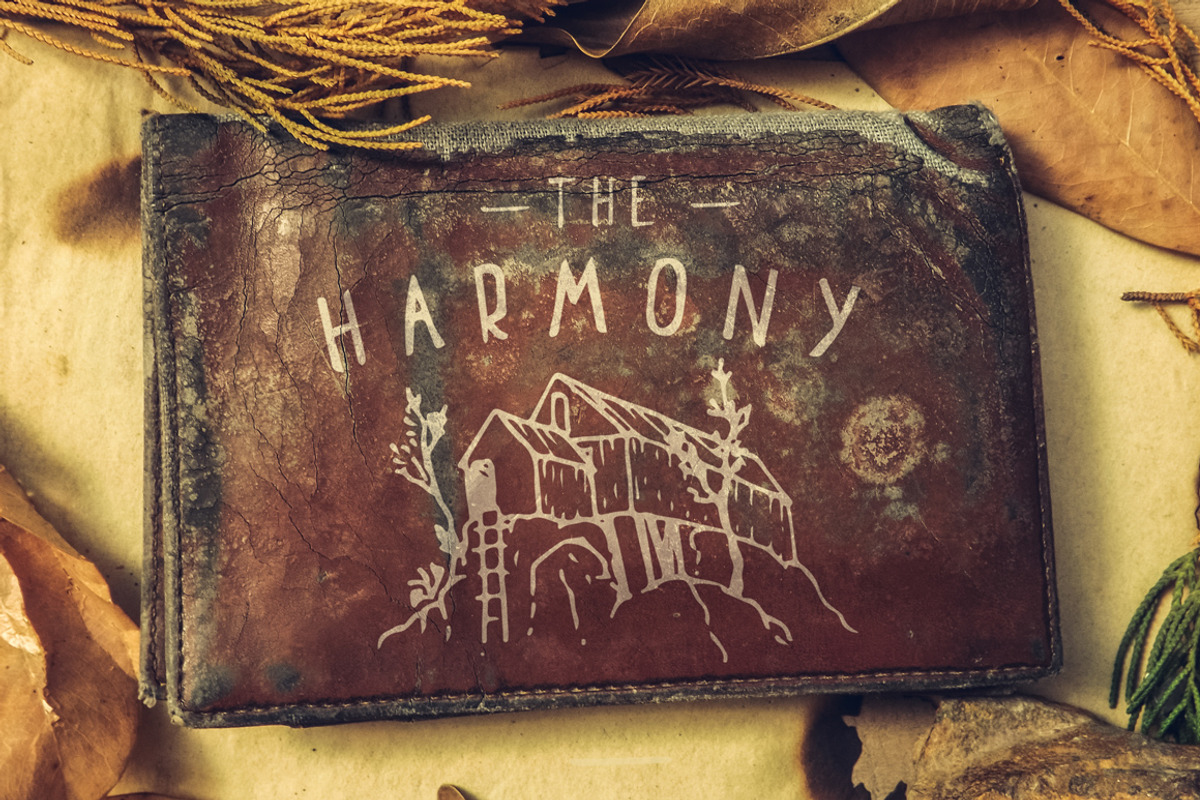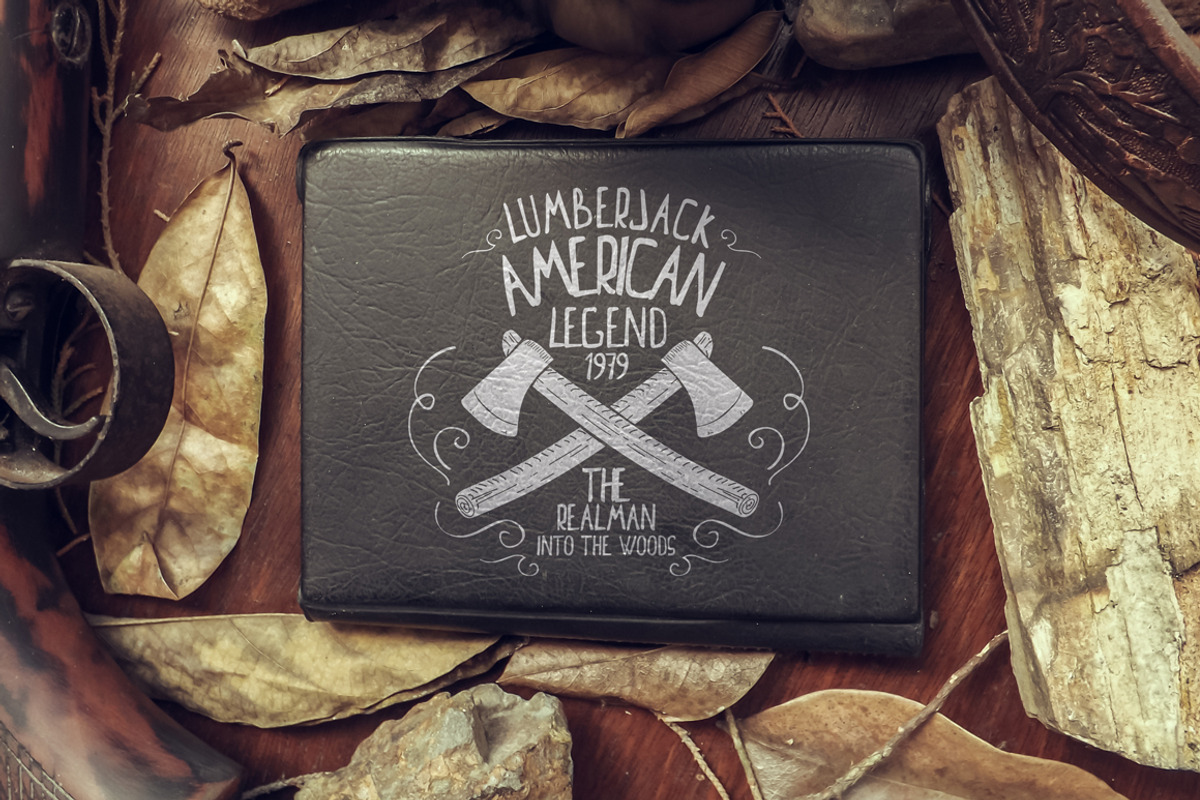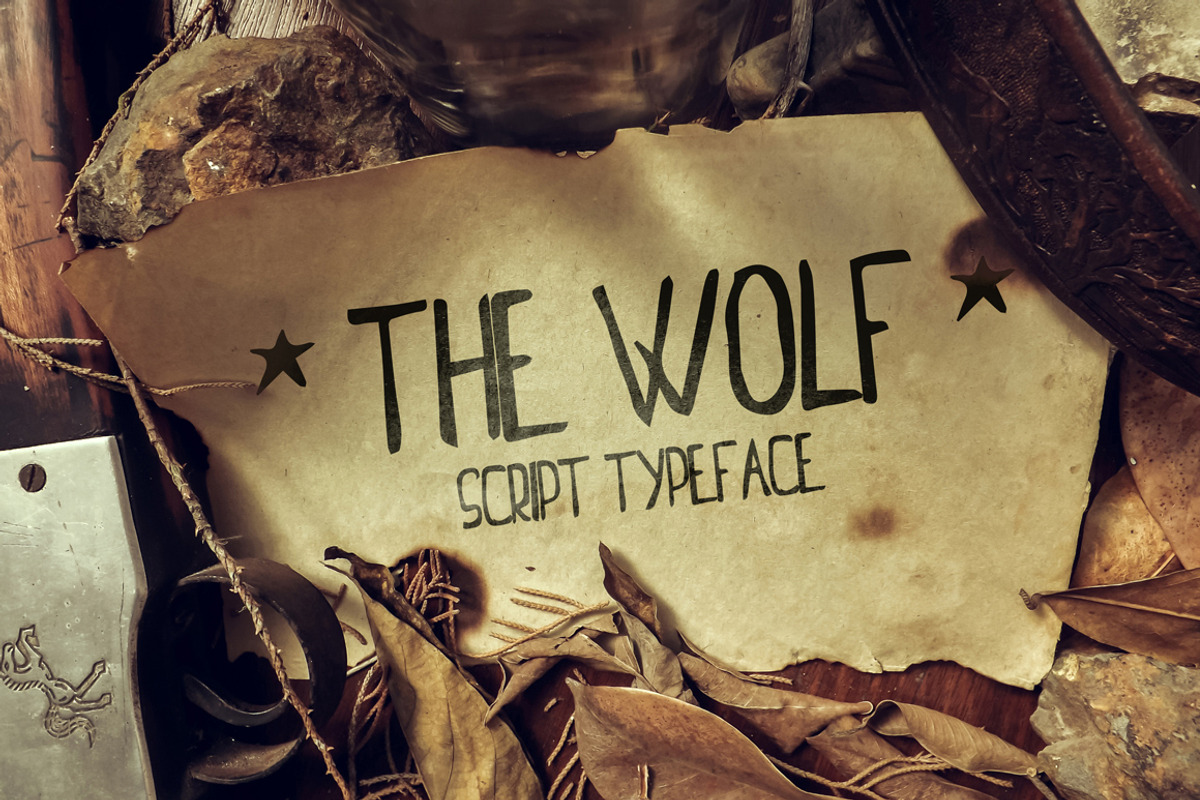
The Wolf Script Typeface
The Wolf Script Typeface by SmartDesigns is a font selected for branding, posters, packaging, typography.
Why The Wolf Script Typeface is worth a look
The Wolf Script Typeface by SmartDesigns fits naturally into Branding, posters, packaging, typography.